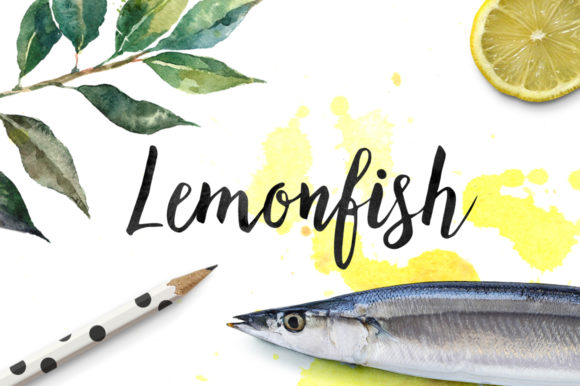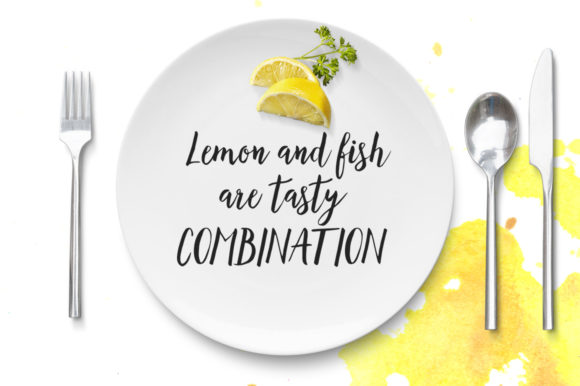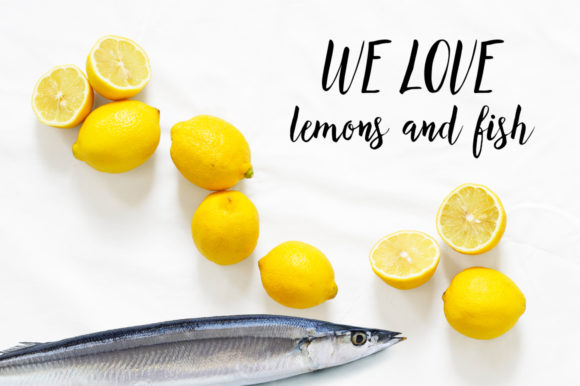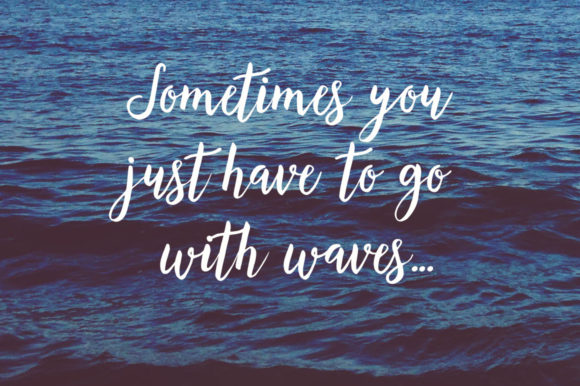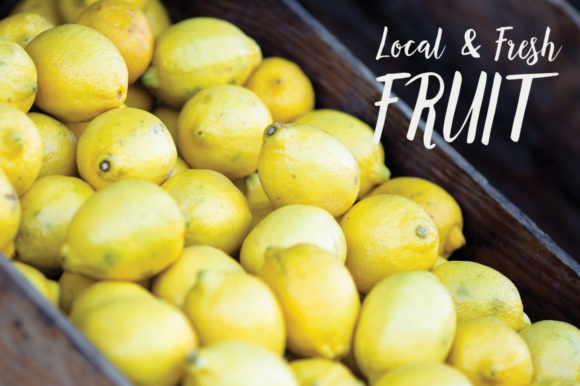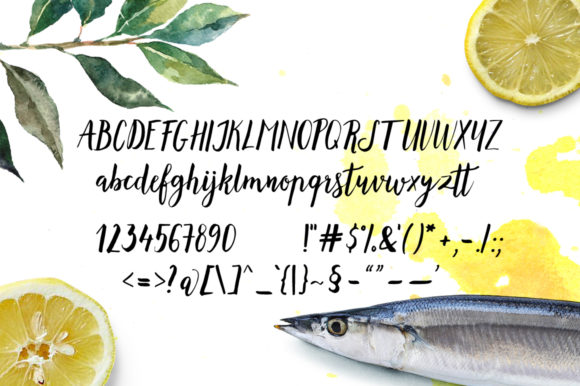
Lemonfish Font
About Lemonfish Font
The Lemonfish is a cute handlettered script. It’s perfect for adding an artistic feel to your wedding announcements, greeting cards, invitations, branding, logos, and much more!